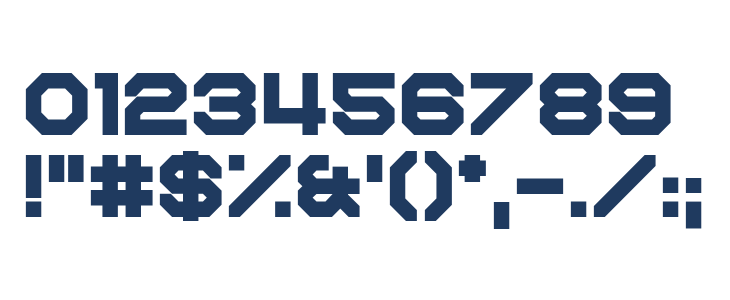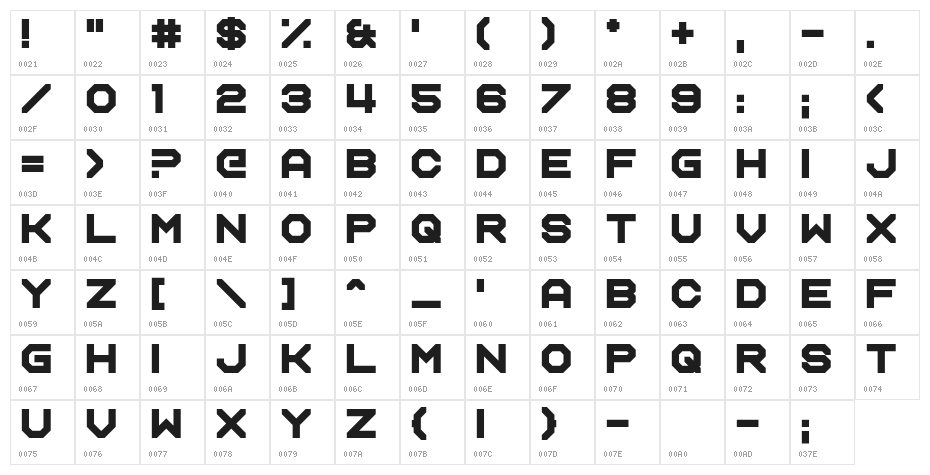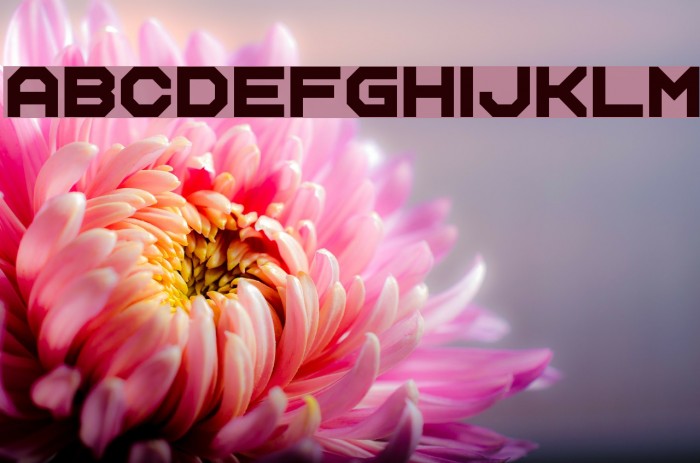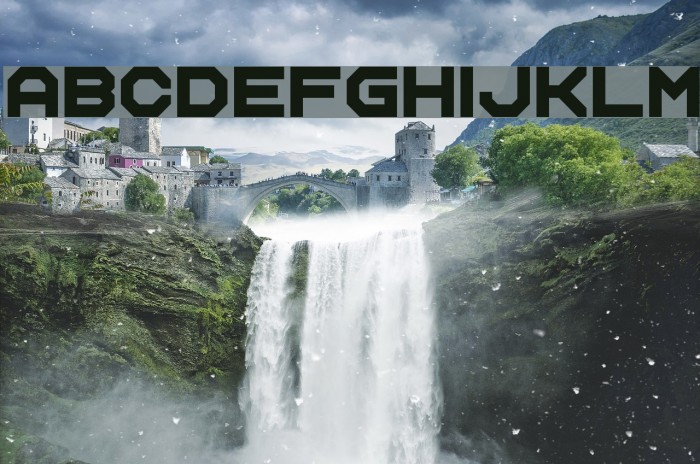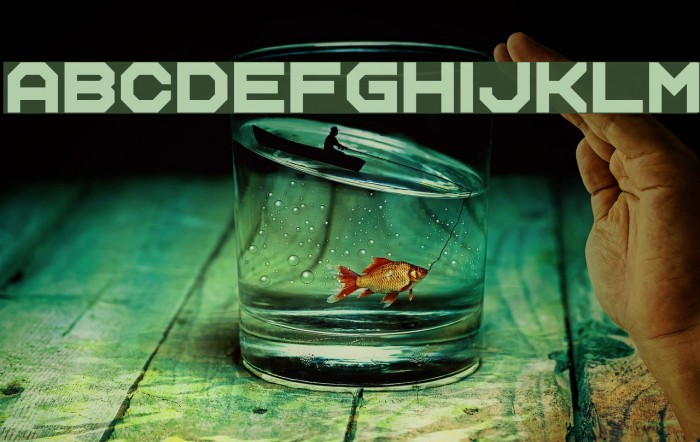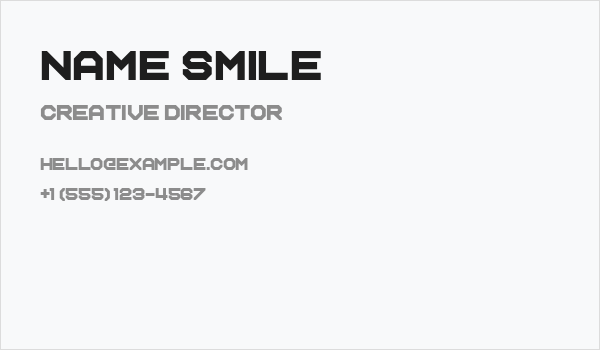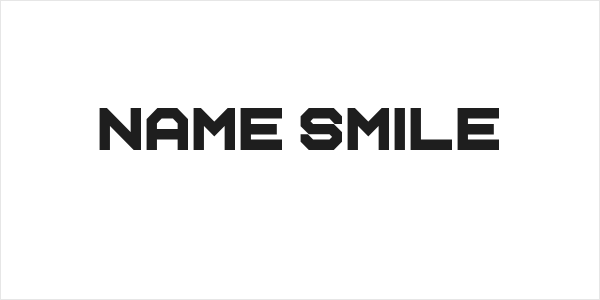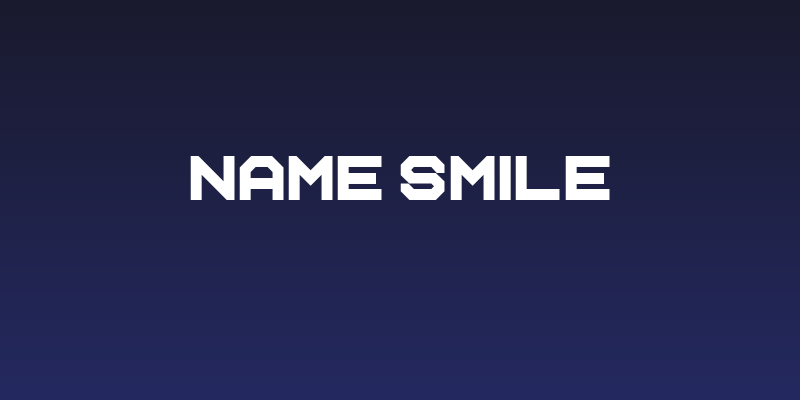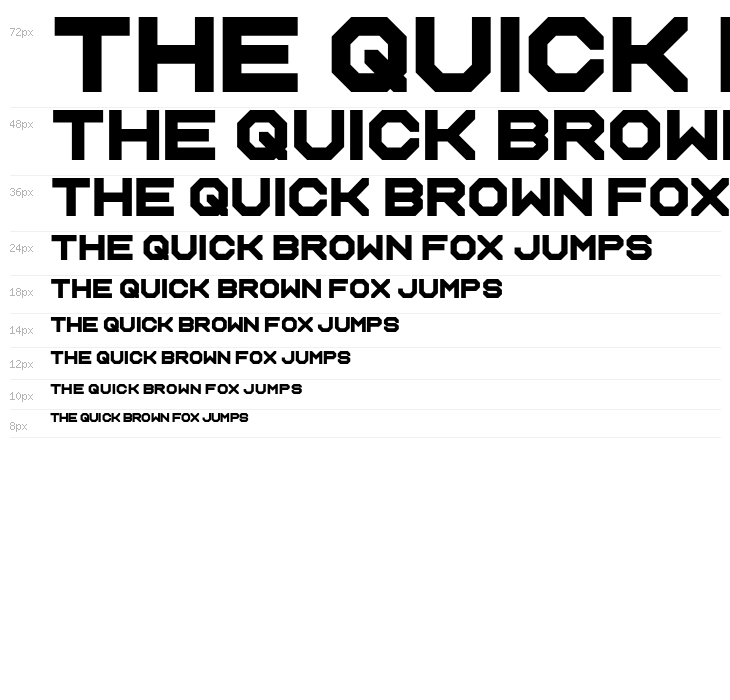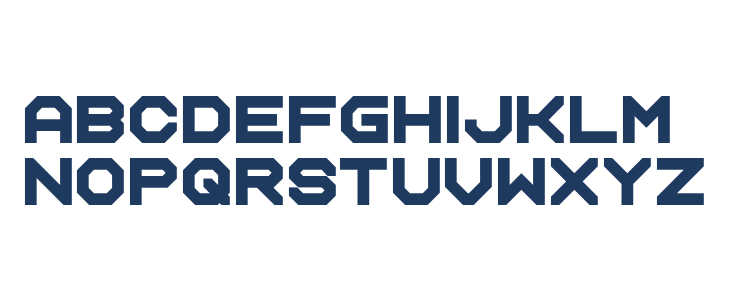
Name Smile Font
Name Smile Description
This font features a bold, geometric design with a strong, angular appearance. The characters are constructed with thick, straight lines and sharp corners, giving it a modern and industrial feel. The uniformity in stroke width across all characters contributes to a cohesive and structured look. The uppercase and lowercase letters maintain a consistent style, while the numerals and special characters complement the overall aesthetic. This font's distinctive style makes it stand out, suitable for projects that require a bold and assertive visual impact.
Proposed ProjectsIdeal for branding, posters, headlines, and signage where a strong, modern look is desired.